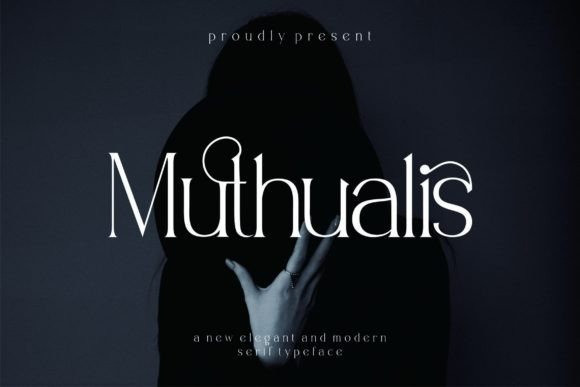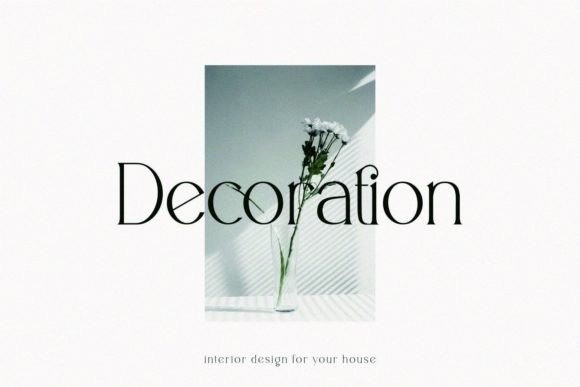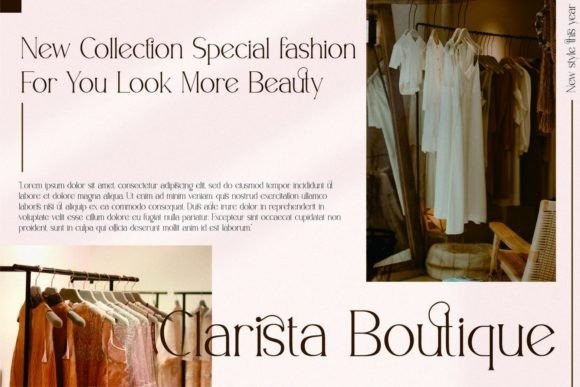
Muthualis Font
Muthualis is an elegant and modern serif with beautiful contrast.
Specially designed for fashion-themed projects, perfectly suitable for creating elegant, chic, lifestyle designs such as logos, titles, magazines, and more.
This font has some creative ligature to make it more premium.